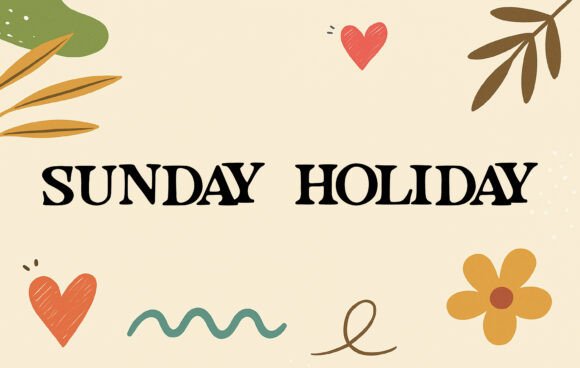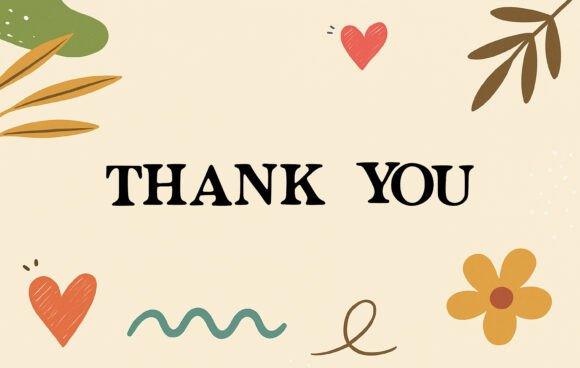
Introducing Dimas Font: Elevate Your Creative Projects with Style and Legibility
In the world of design, the right font can make all the difference. It’s the perfect blend of style, legibility, and creativity that can take your projects to the next level. If you’re a designer, crafter, or simply someone who loves to dabble in creative endeavors, you’re in luck. Dimas Font is here to revolutionize the way you approach your designs, offering a versatile and visually stunning solution for a wide range of projects.
A Font Designed for Versatility
Dimas Font is crafted with the goal of being a true favorite among designers and crafters alike. Its design ensures that it is not only aesthetically pleasing but also highly legible, making it perfect for use as both title and body text. This versatility is key to its appeal, as it can seamlessly integrate into various design projects, from the more traditional to the modern and innovative.
The applications for Dimas Font are virtually limitless. Whether you’re working on a magazine headline, designing t-shirts, creating engaging social media content, developing a brand identity, or crafting beautiful wedding invitations and cards, this font is up to the task. Its wide range of uses makes it an invaluable asset for any designer or crafter looking to expand their creative horizons.
Magazine Headlines and Body Text
For magazine and editorial designers, Dimas Font offers the perfect combination of style and readability. Its unique character ensures that your headlines will stand out on the page, drawing readers in with an irresistible blend of modernity and sophistication. Moreover, its legibility makes it an excellent choice for body text, providing a comfortable reading experience for your audience.
Fashion and Merchandise
In the realm of fashion and merchandise design, Dimas Font shines by offering a distinctive look that can set your designs apart. For t-shirts, tote bags, and other apparel, this font provides a stylish and contemporary feel that will appeal to a wide audience. Its clarity and style ensure that your message or design is conveyed effectively, making it a go-to choice for designers looking to make an impact.
Social Media and Branding
In today’s digital landscape, having a consistent and recognizable brand identity is crucial. Dimas Font can play a pivotal role in establishing this identity across various social media platforms and marketing materials. Its modern aesthetic and readability make it perfect for social media posts, brand mottos, and website content, helping to create a cohesive and professional look for your brand.
Wedding Invitations and Stationery
For those special occasions, Dimas Font offers a touch of elegance and sophistication. Its beautiful design makes it ideal for wedding invitations, greeting cards, and other stationery. The font’s unique style adds a personal and memorable touch to your invitations, setting the tone for your special day.
Why Choose Dimas Font?
So, what sets Dimas Font apart from other fonts on the market? Here are a few reasons why it’s becoming a favorite among designers and crafters:
- Legibility: Dimas Font is designed to be easy to read, making it perfect for both body text and headlines.
- Versatility: Its unique style lends itself well to a wide range of design projects, from digital content to print materials.
- Aesthetic Appeal: With its modern and stylish look, Dimas Font adds a touch of sophistication to any design.
Dimas Font is more than just a font – it’s a tool that can elevate your creative projects to new heights. Its blend of style, legibility, and versatility makes it an indispensable asset for designers and crafters looking to make an impact. Whether you’re working on a magazine, a fashion project, social media content, or special occasion stationery, Dimas Font is the perfect choice. Discover the potential of Dimas Font and take your designs to the highest level.